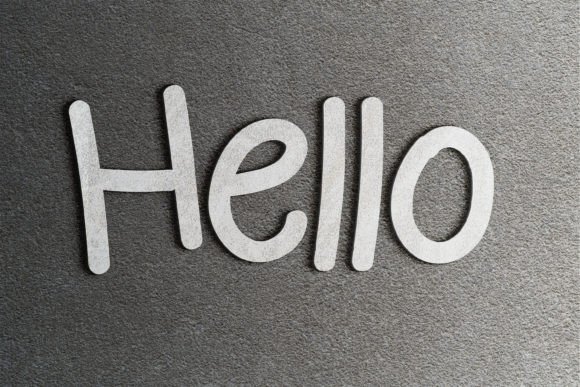
Hello Font: The Fun and Quirky Handwritten Font for Crafty Ideas
Are you a designer or crafter looking for a font that adds a personal touch to your projects? Look no further than Hello Font! This fun and quirky handwritten font is perfect for adding a dash of personality to your crafty ideas. In this article, we’ll dive into the world of Hello Font and explore how you can use it to take your designs to the next level.
What is Hello Font?
Hello Font is a unique and charming handwritten font that’s designed to add a touch of whimsy to your designs. With its playful and informal vibe, it’s perfect for projects that require a personal and friendly feel. Whether you’re working on a DIY craft project, a social media graphic, or a blog post, Hello Font is sure to bring a smile to your audience’s faces.
Key Features of Hello Font
• Handwritten style: Hello Font has a genuine handwritten look that’s perfect for adding a personal touch to your designs.
• Quirky and fun: This font is designed to be playful and fun, making it perfect for crafty and creative projects.
• Easy to read: Despite its quirky style, Hello Font is easy to read and understand, making it perfect for use in a variety of contexts.
• Versatile: Hello Font can be used for a wide range of projects, from DIY crafts to digital designs.
How to Use Hello Font in Your Designs
So, how can you use Hello Font in your designs? Here are a few ideas to get you started:
• DIY crafts: Add a personal touch to your DIY crafts, such as handmade cards, gift tags, and scrapbook pages.
• Social media graphics: Use Hello Font to add a playful touch to your social media graphics, such as Instagram posts and Facebook updates.
• Blog posts: Add a dash of personality to your blog posts with Hello Font, perfect for bloggers who want to stand out from the crowd.
• Digital art: Use Hello Font to add a handwritten touch to your digital art, such as illustrations and graphics.
Tips for Using Hello Font Effectively
Here are a few tips for using Hello Font effectively in your designs:
• Use it sparingly: Hello Font is a bold and playful font, so use it sparingly to avoid overwhelming your design.
• Pair it with other fonts: Hello Font pairs well with other fonts, such as sans-serif fonts, to create a visually interesting design.
• Experiment with colors: Hello Font looks great in a variety of colors, so don’t be afraid to experiment and find the perfect hue for your design.
Hello Font is a fun and quirky handwritten font that’s perfect for adding a personal touch to your crafty ideas. With its playful and informal vibe, it’s perfect for a wide range of projects, from DIY crafts to digital designs. By following the tips outlined in this article, you can use Hello Font to take your designs to the next level and add a dash of personality to your work.